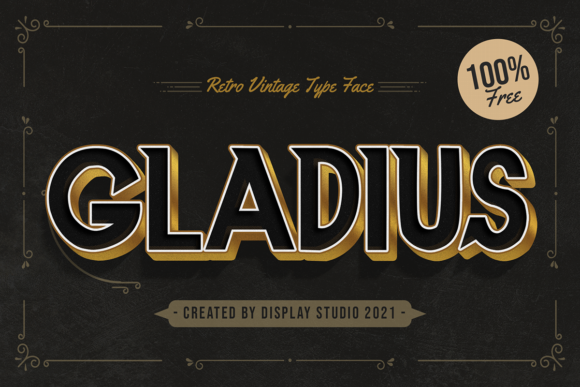
Introducing Gladius Font: The Bold and Retro Display Font You Need
Are you tired of using the same old fonts in your designs? Look no further than Gladius Font, a bold and retro-styled display font that’s sure to take your work to the next level. With its unique blend of classic and modern elements, Gladius Font is the perfect addition to any design project. In this article, we’ll take a closer look at what makes Gladius Font so special and how you can use it to amaze your readers.
What is Gladius Font?
Gladius Font is a display font that’s designed to make a statement. Its bold, retro style is reminiscent of classic typography from the past, but with a modern twist that makes it perfect for contemporary designs. The font features clean lines, geometric shapes, and a confident attitude that’s sure to grab attention.
Key Features of Gladius Font
- Bold and eye-catching: Gladius Font is designed to stand out from the crowd. Its bold lines and geometric shapes make it perfect for headlines, titles, and other applications where you want to make a statement.
- Retro style: Gladius Font has a distinctly retro feel that’s perfect for designs that require a vintage or nostalgic look.
- Versatile: Despite its bold style, Gladius Font is incredibly versatile and can be used in a wide range of design applications, from posters and flyers to logos and branding materials.
- Easily readable: Despite its bold style, Gladius Font is surprisingly easy to read, making it perfect for designs where you need to communicate a message quickly and clearly.
How to Use Gladius Font in Your Designs
Gladius Font is an incredibly versatile font that can be used in a wide range of design applications. Here are a few ideas to get you started:
- Posters and flyers: Use Gladius Font to create bold and eye-catching posters and flyers that grab attention and communicate your message clearly.
- Logos and branding: Gladius Font is perfect for logos and branding materials, where its bold and retro style can help to create a memorable and distinctive brand identity.
- Social media graphics: Use Gladius Font to create bold and eye-catching social media graphics that stand out from the crowd and help to communicate your message.
- Packaging design: Gladius Font can be used to create eye-catching packaging designs that help your product stand out on store shelves.
Tips for Getting the Most Out of Gladius Font
Here are a few tips for getting the most out of Gladius Font:
- Use it boldly: Gladius Font is designed to be used boldly, so don’t be afraid to experiment with different sizes and styles to create maximum impact.
- Pair it with contrasting fonts: Gladius Font works well when paired with contrasting fonts, such as elegant scripts or simple sans-serifs.
- Experiment with colors: Gladius Font looks great in a wide range of colors, so don’t be afraid to experiment and find the perfect color scheme for your design.
In conclusion, Gladius Font is a bold and retro-styled display font that’s perfect for designers and crafters who want to add a touch of classic style to their work. With its unique blend of classic and modern elements, Gladius Font is sure to amaze your readers and help you to create designs that stand out from the crowd. So why wait? Download Gladius Font today and start creating amazing designs that showcase your creativity and style.